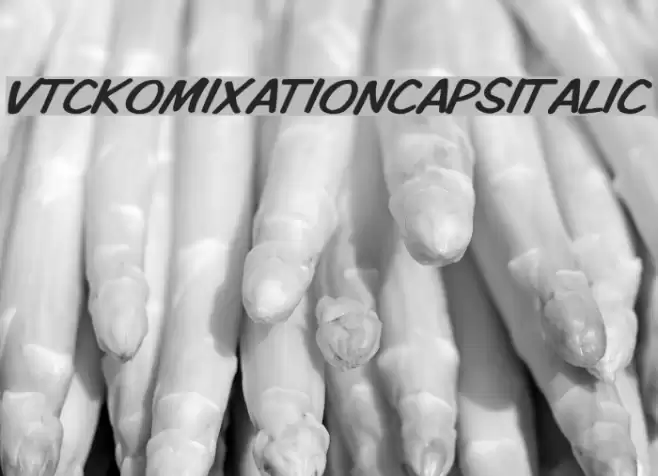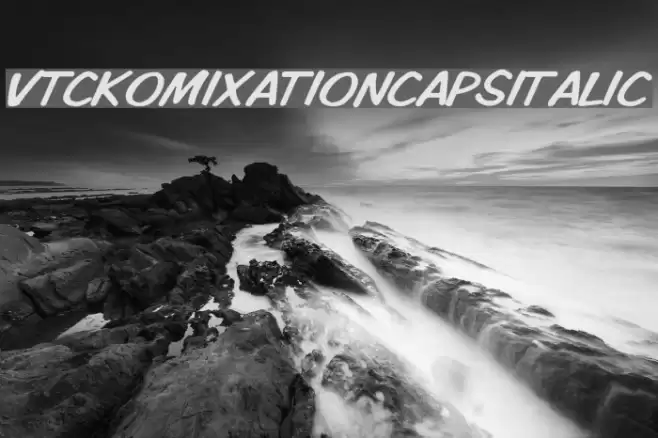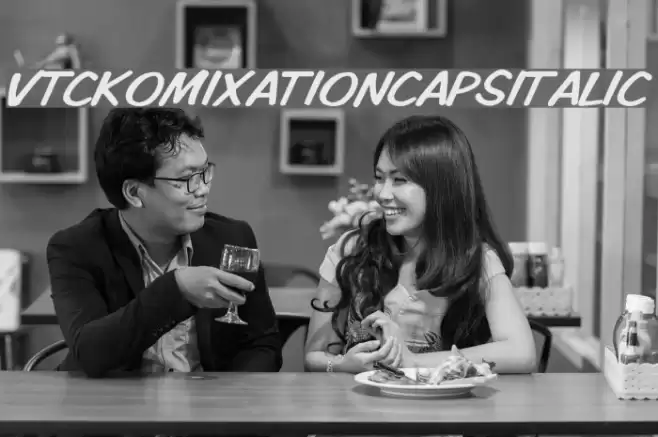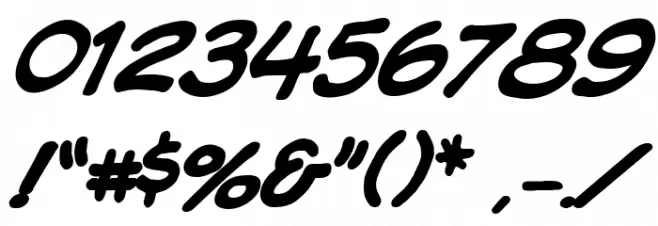
VTCKomixationCapsItalic Font
VTCKomixationCapsItalic Description
This font features a playful and dynamic style with a handwritten appearance. The letters are italicized, giving a sense of motion and energy. The strokes are bold and rounded, contributing to a friendly and approachable look. The characters are slightly slanted, enhancing the informal and casual feel. The numbers and special characters maintain the same lively style, making them consistent with the alphabetic characters. This font is well-suited for projects that require a fun and engaging aesthetic.
A playful, italicized handwritten font with bold, rounded strokes from Uncategorized fonts.
- Proposed Projects: Ideal for comic books, children's books, playful branding, and casual invitations.
- Overall Style: Playful
- Use Case: Headlines, Logos, Informal Text